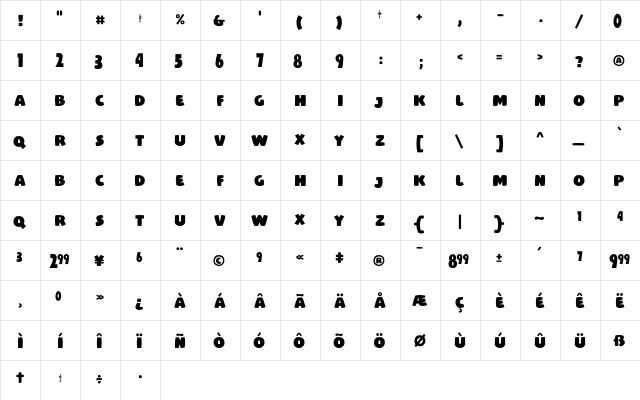
99 Black
Design Context for 99 Typeface
99 offers clean, dependable letterforms without strong stylistic allegiance, making it a practical choice for designers who need flexibility.